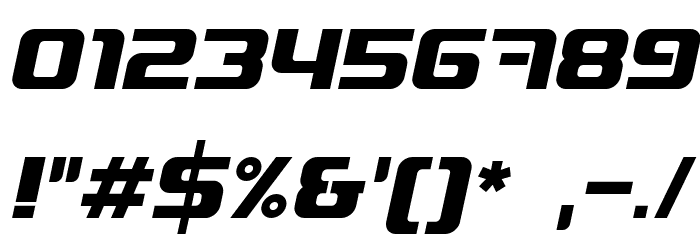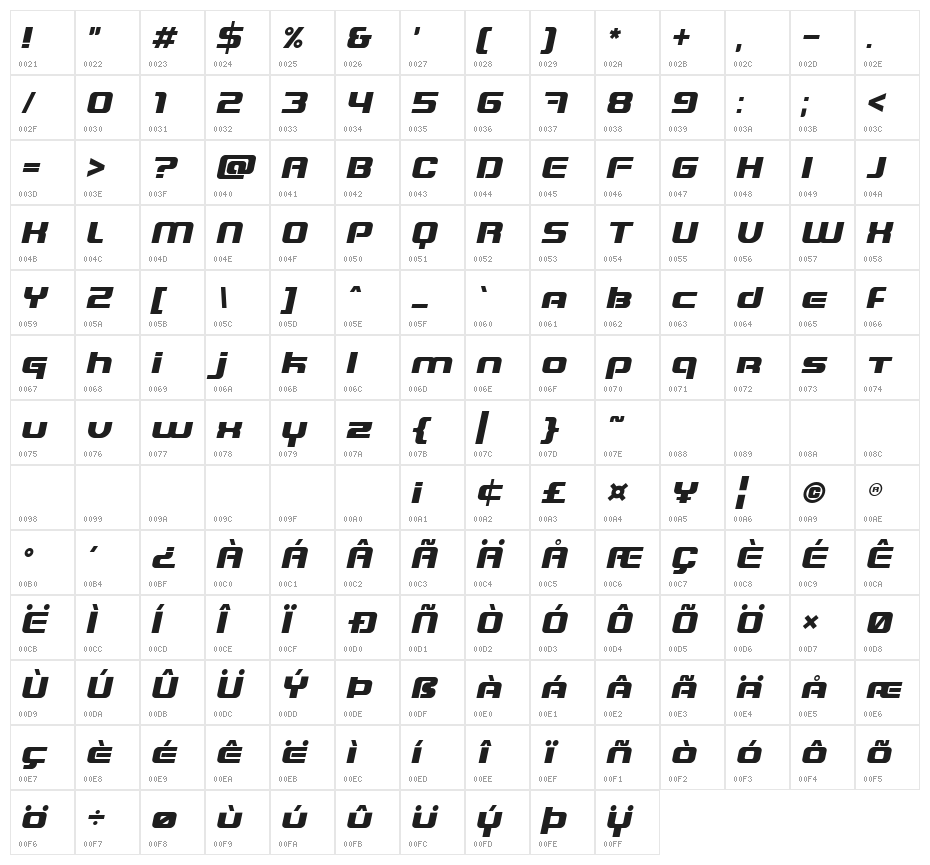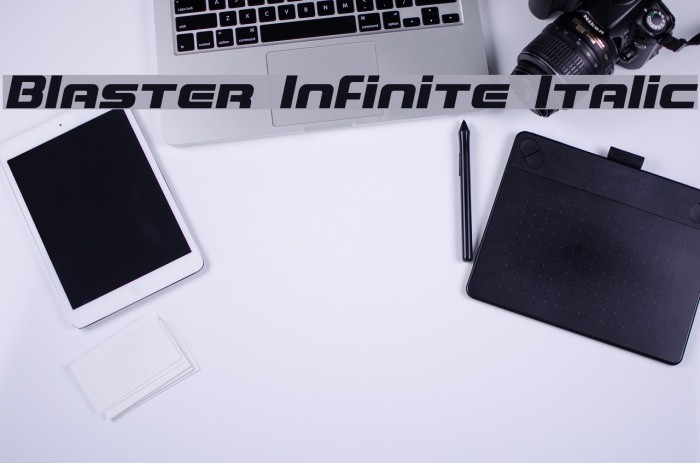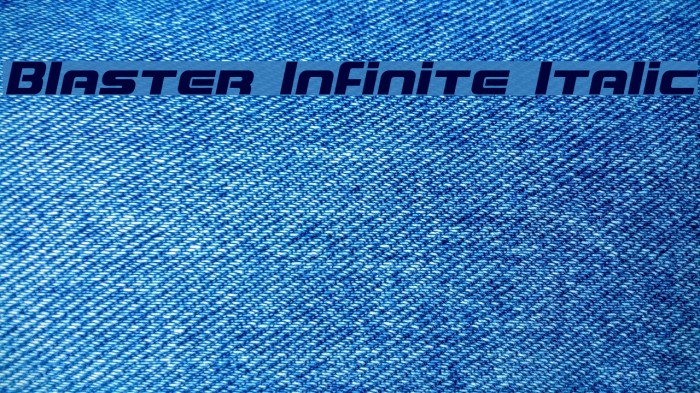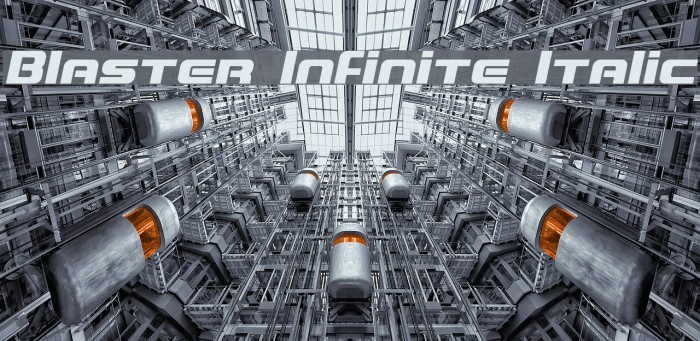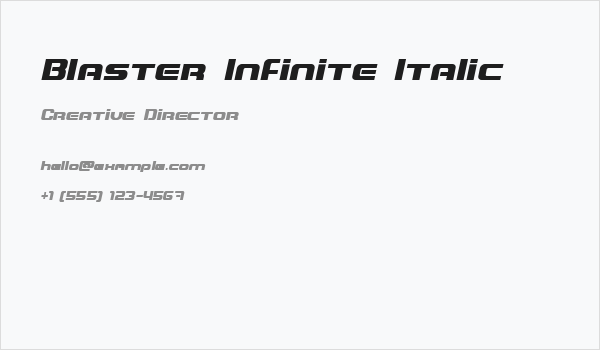
Blaster Infinite Italic Font
Blaster Infinite Italic Description
This font features a bold, italicized style with a futuristic and dynamic appearance. The characters are slightly slanted, giving a sense of motion and speed. The strokes are thick and consistent, providing a strong visual impact. The design includes rounded edges and smooth curves, contributing to its modern aesthetic. The uppercase and lowercase letters maintain a uniform style, while the numerals and special characters complement the overall look. This font is ideal for projects that require a bold and energetic presentation.
| Proposed Projects | Ideal for sports branding, tech-related designs, video game titles, and dynamic posters. |